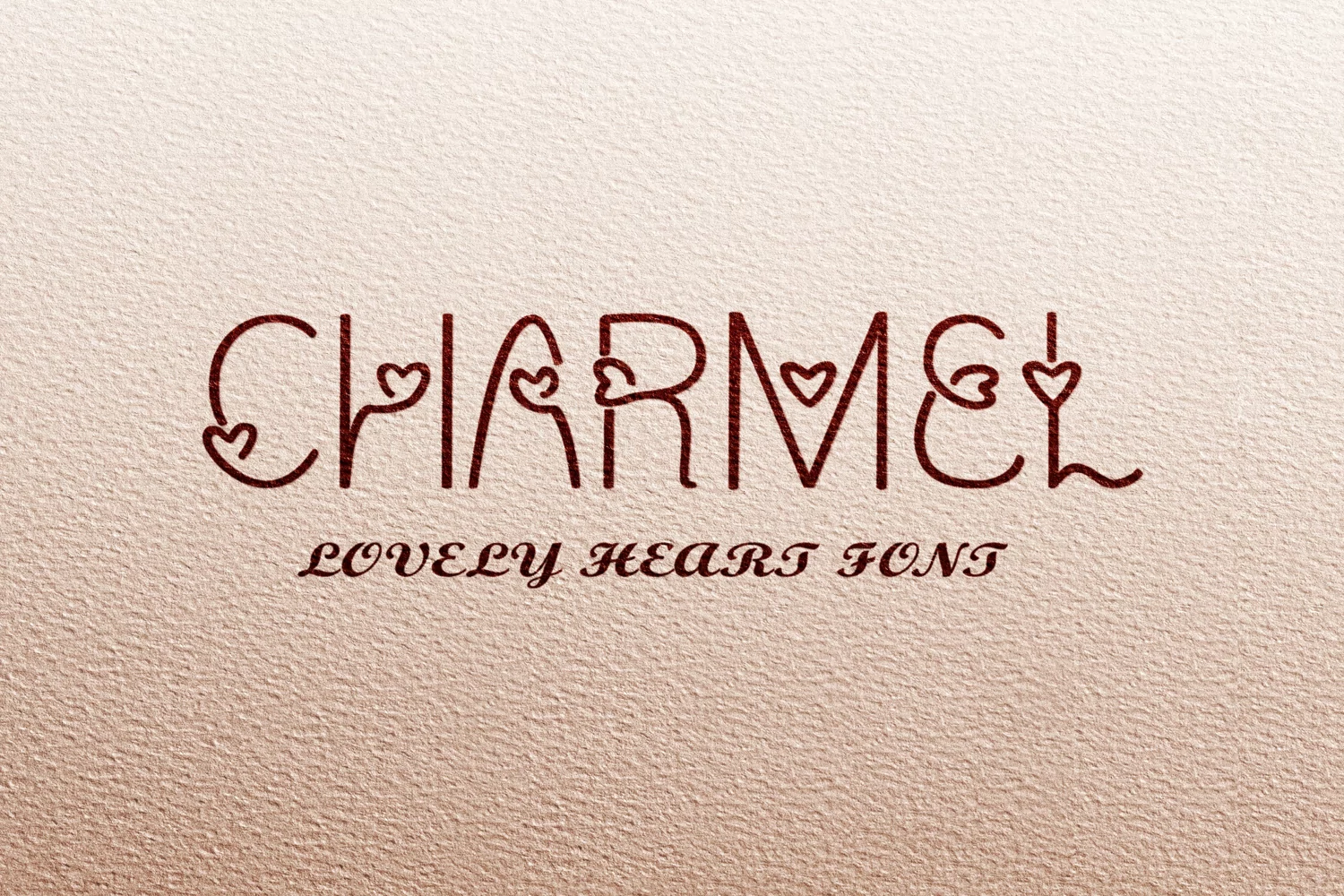
Charmel Love font. Valentine's Day Font. Lovely Heart font.
CHARMEL - Beautiful Love Font.
The features is only uppercase. This font is Display font.
Created with love, for messages about love, confessions, postcards and various lovely and cute designs.This romantic font, suitable for any projects such as: logos, branding projects, homeware designs, product packaging, mugs, quotes, posters, shopping bags, t-shirts, book covers, name card, invitation cards, greeting cards, label, photography, watermark, special events, and all your other projects that need a beautiful font taste.